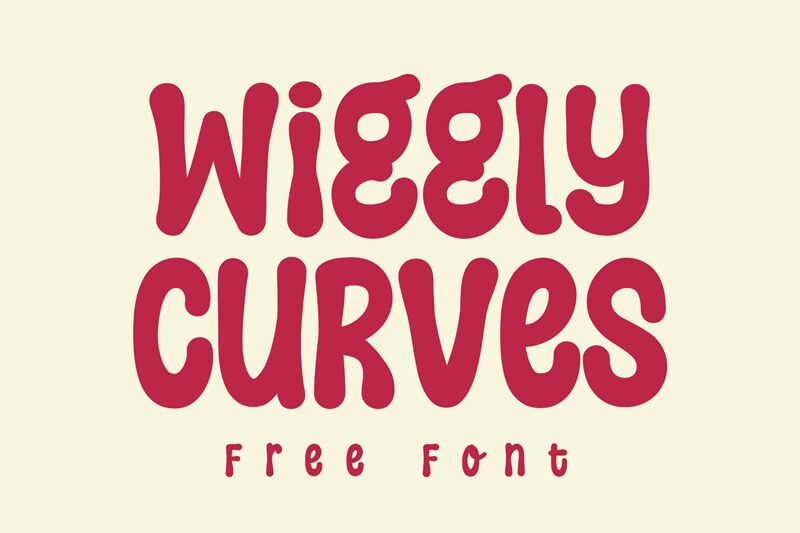
Wiggly Curves Regular
Wiggly Curves, designed by Niskala Huruf, is a distinctive display font that exudes a playful and groovy vibe. Its bold weight commands attention, while the semi-condensed width ensures that every character makes a striking impact without overwhelming the canvas. The curvaceous design of Wiggly Curves brings an element of fun and creativity to any project, making it particularly suited for designs that aim to stand out with a touch of retro flair.
The aesthetic appeal of Wiggly Curves lies in its ability to blend whimsy with sophistication. Each letter boasts undulating lines that seem to dance across the page, inviting viewers into a world where typography is not just seen but felt. This font is perfect for branding, poster design, and any creative work where personality is key. With Wiggly Curves, your message won't just be read; it'll capture imaginations and hold gazes with its unique charm.